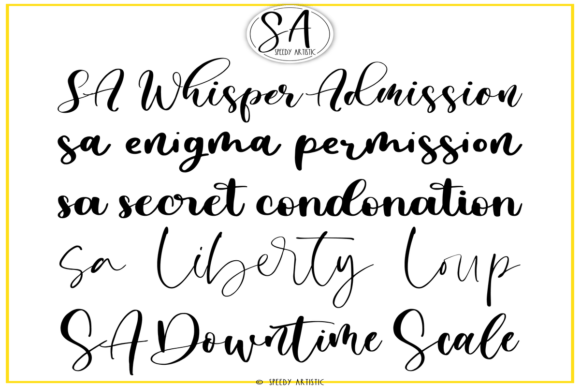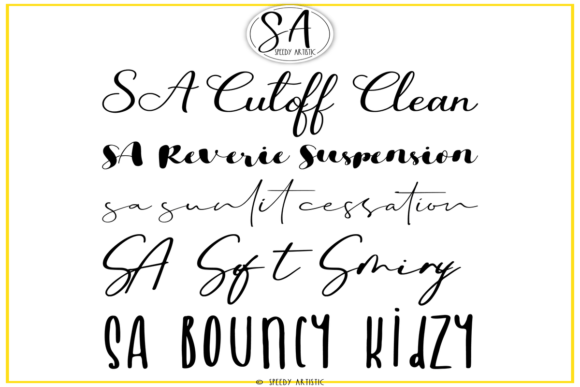
Introduction to Script and Handwritten Bundle 7 Font
Remember that moment when you stumbled upon the perfect font for your creative project? The one that transformed your design from ordinary to extraordinary? As designers, we’ve all been there. And for those who love to experiment with new fonts, the Script and Handwritten Bundle 7 Font is a treasure trove waiting to be discovered. This comprehensive bundle includes 10 high-quality, True-Type script fonts (TTF) that are perfect for adding a touch of elegance and sophistication to your designs.
Whether you’re working on a branding project, a digital product, or a creative campaign, this bundle has got you covered. With a diverse range of fonts to choose from, you’ll never run out of options to make your design stand out. And the best part? The fonts in this bundle are designed to work seamlessly with transparent backgrounds, making them ideal for a wide range of design applications.
Key Features of Script and Handwritten Bundle 7 Font
- High-quality, professional design resource ideal for creative projects.
- Includes a variety of script and handwritten fonts in a single bundle, perfect for designers and artists.
- Transparent background for seamless integration into any design, allowing for easy editing and customization.
- Each font is carefully crafted with a high resolution of 300 DPI, ensuring crisp and clear text output.
- Unique characteristics include elegant, cursive, and handwritten styles, making it perfect for wedding invitations, quotes, and other creative projects.
Honest Review: Script and Handwritten Bundle 7 Font
I recently stumbled upon the Script and Handwritten Bundle 7 Font, and I’m excited to share my thoughts on this design resource.
- ✨ High-quality font designs that are perfect for creative projects.
- ✨ Transparent background options make it easy to customize and blend with any design.
- ✨ The bundle includes a wide range of font styles, from elegant to playful.
The Script and Handwritten Bundle 7 Font is ideal for designers who want to add a personal touch to their projects. The fonts are versatile and can be used for a variety of applications, from branding to web design.
- ⚠️ Limited customization options, which may not be ideal for designers who want more control.
- ⚠️ Some fonts may not be suitable for small text sizes due to their intricate designs.
The Script and Handwritten Bundle 7 Font is ideal for a variety of creative projects, including:
– Invitations and event designs